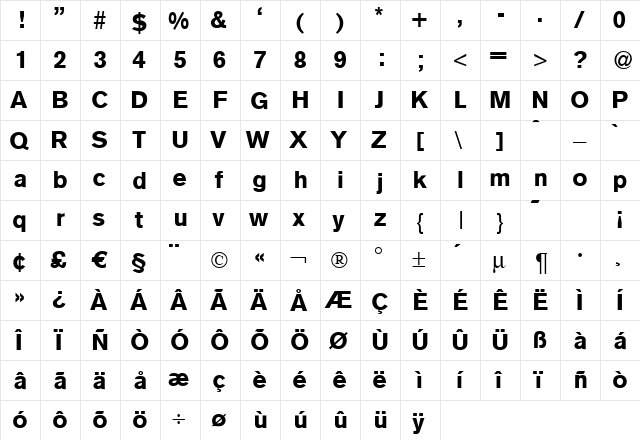
A750-Sans Bold Font Preview
A750-Sans Bold
Design Context for A750-Sans Typeface
A750-Sans offers clean, dependable letterforms without strong stylistic allegiance, making it a practical choice for designers who need flexibility. The heavy weight commands attention and anchors typographic hierarchies.